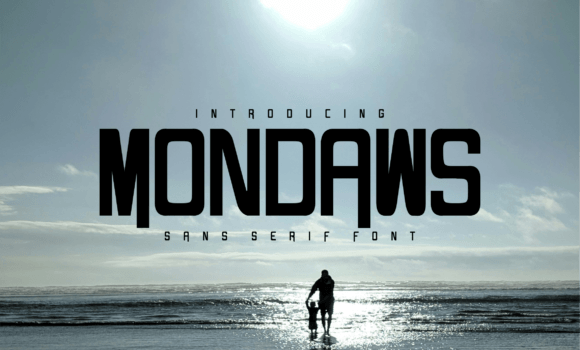
Mondaws Font – Free Download Introduction to Mondaws Font Mondaws is a natural and casual sans-serif font that exudes a relaxed and organic vibe. 📸 Preview Gallery 4 images 📌 Product Name Mondaws Font 👤 Author emprit.graphic 📂 Category Explore